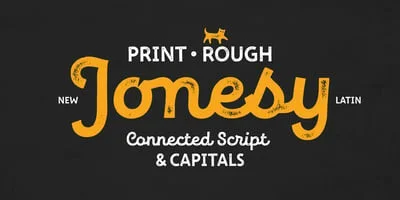
New Jonesy Latin Font
New Jonesy Latin Font is an exceptional choice for projects that demand a blend of historical charm, robust presence, and a distinctive, slightly condensed vintage appeal. It's perfectly suited for retro-inspired branding, bold editorial headlines, classic product packaging, signage with an old-world feel, and any application where you want to evoke a sense of tradition, durability, and handcrafted artistry. Imagine it gracing a vintage advertisement for a local brewery, adding an authentic period touch to a historical film poster, or giving a distinctive, timeless voice to an artisan's workshop logo. Its sturdy letterforms and confident stance ensure your message is conveyed with both character and an undeniable sense of enduring quality.
What makes New Jonesy Latin Font so exciting is its ability to infuse designs with a powerful sense of nostalgia and an unpretentious, straightforward charm. It captures the essence of classic letterpress or painted signs, bringing a tangible, old-school feel to modern digital creations. This font isn't just about conveying text; it’s about storytelling, adding a layer of authenticity and a strong, honest appeal to your visuals. It's the ideal tool for designers looking to infuse their work with a unique historical context or a strong, dependable aesthetic that stands the test of time.
The New Jonesy Latin Font family typically offers a range of weights and styles to provide robust design flexibility, often emphasizing its unique condensed and slightly vintage characteristics. You might find a standard Regular weight that embodies its core sturdy design, along with potential variations that enhance its visual impact, such as bolder versions for maximum emphasis or slight stylistic alterations that reinforce its period-specific character. These nuances ensure that New Jonesy Latin Font can be the cornerstone of a truly unique and powerfully thematic visual identity, helping your designs stand out with an undeniable sense of character and historical authenticity.